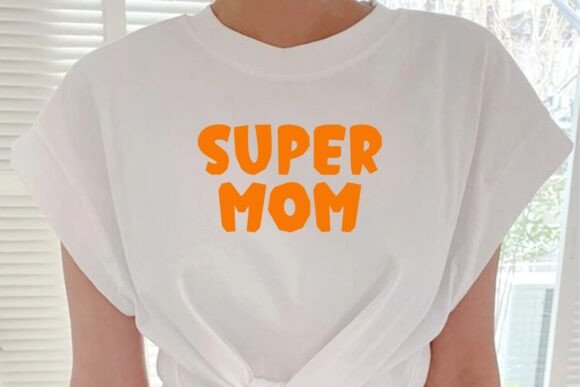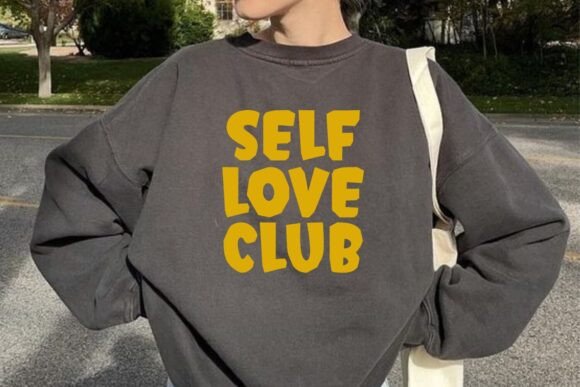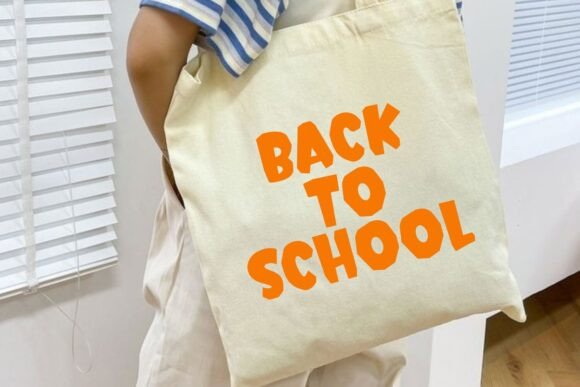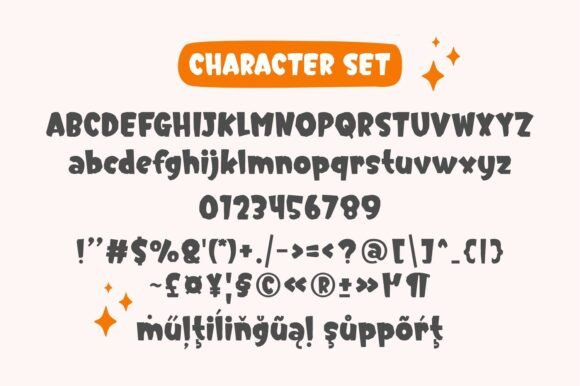
Bringing Fun and Creativity to Your Designs with Cartoon Childish Font
Have you ever been in the middle of a design project, and suddenly, you just can’t seem to find the right font? I recall a recent experience where I was working on a children’s book, and my client asked for a font that was “fun, playful, and engaging.” I scoured the internet, trying out various fonts, but none seemed to capture the essence of what we were looking for. That was until I stumbled upon Cartoon Childish Font. In this article, we’ll explore the world of Cartoon Childish Font, its features, and how to make the most of it in your designs.
A Personal Review of Cartoon Childish Font
So, what makes Cartoon Childish Font so special? Let’s dive into the good stuff! 😊
- ✨ Playful and Bold: Cartoon Childish Font is perfect for designs that require a fun and lively touch. Its quirky letterforms and cheerful vibe make it an excellent choice for children’s books, school projects, posters, and more.
- ✅ Multilingual Support: This font comes packed with an extensive character set, ensuring versatility for all your design needs. Whether you’re working on a project that requires support for multiple languages or special characters, Cartoon Childish Font has got you covered.
- 🎉 OpenType Features: Cartoon Childish Font features a range of OpenType features, including stylistic alternates, glyphs, and ligatures. These features allow you to customize your text and add an extra layer of creativity to your designs.
While Cartoon Childish Font is an excellent choice for many designs, there are a few things to keep in mind:
- 🤔 Legibility at Small Sizes: As with many playful fonts, Cartoon Childish Font can become less legible at small sizes. It’s best to use this font at larger sizes, such as headlines or titles, to ensure maximum impact.
- ⚠️ Limited Use in Formal Designs: Due to its playful nature, Cartoon Childish Font may not be the best choice for formal designs, such as business cards or corporate reports. However, it can be a great addition to more creative projects.
The Story Behind Cartoon Childish Font
Cartoon Childish Font was designed with one goal in mind: to bring fun and creativity to designs. The font’s creator, a freelance designer with a passion for typography, was inspired by classic cartoons and children’s books. The result is a font that’s playful, bold, and engaging.
| What is Cartoon Childish Font? | Cartoon Childish Font is a playful and bold font that’s perfect for designs that require a fun and creative touch. |